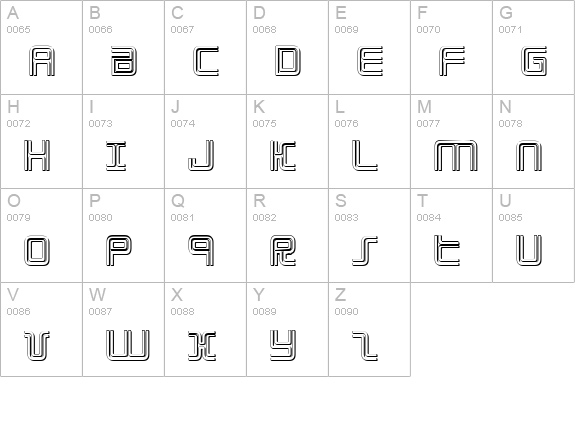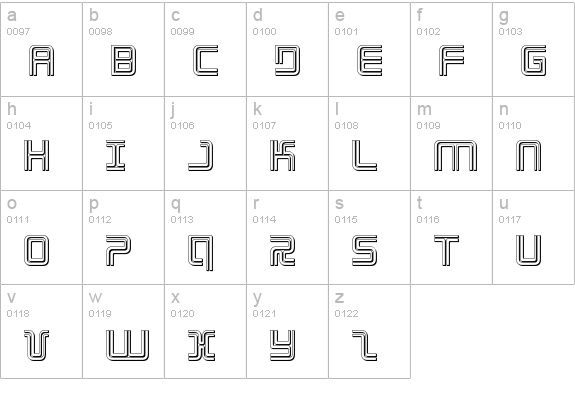
Election Day 3D font is a dynamic and eye-catching typeface perfect for adding a touch of excitement and depth to your design projects. This bold and impactful font is designed to make a statement, making it ideal for posters, banners, and other graphic materials related to elections and political events. Featuring a three-dimensional effect that adds a modern and engaging twist, Election Day 3D font is sure to grab attention and leave a lasting impression on viewers. Its sleek and stylish look makes it versatile for a wide range of applications, from social media graphics to campaign materials. Best of all, Election Day 3D font is available for free download at FontsMarket.com, making it accessible to all designers and creators looking to add a unique touch to their projects. Don't miss out on this opportunity to elevate your designs with this striking and impactful font today!